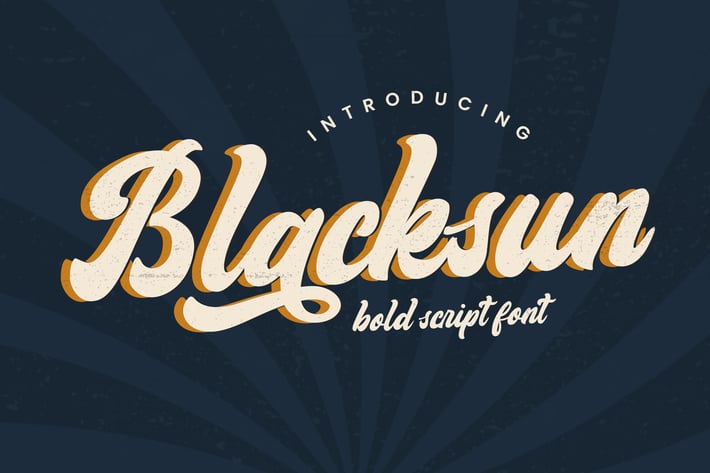
Blacksun Vintage Font
Blacksun is bold vintage script.is bold and elegant lettered display font. Its friendly feel makes this font incredibly versatile, fitting a wide range of contexts. Add it to your creative ideas and notice how it makes them stand out